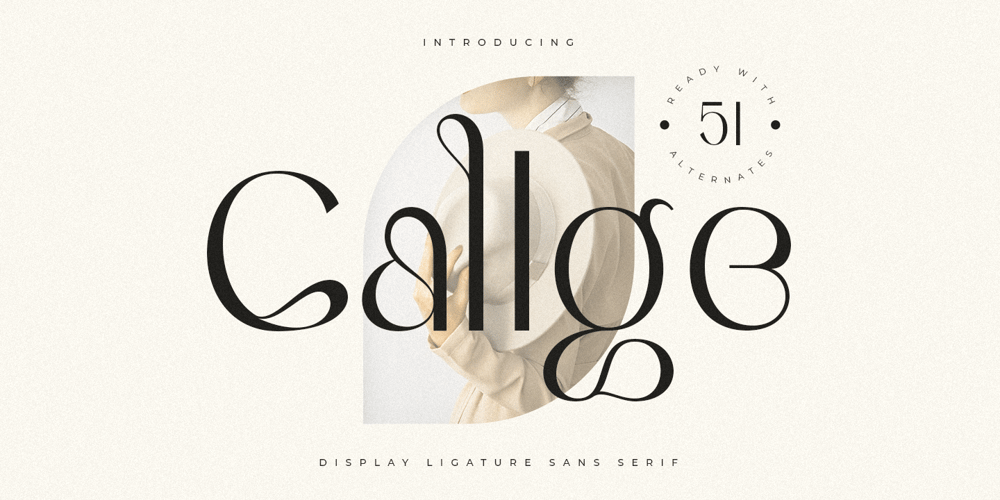
Callge Style
Callge Style font
Callge Style Font Family was designed by Zamroni Hamzah and published by Sensatype Studio. Callge Style contains 1 styles and family package options. An Unique Modern Display Font that we created special for Elegant and Classy branding needs, with extra characters alternate in unique shape will be ready to add value of your brand.Callge Display Ligature Sans Serif ready with: Any options to get creative variations (combination of Any Alternates) Preview as a inspirations that you can do with Callge font Ready with Lowercase and Uppercase characters Wish you enjoy our font. ๐Ÿ™‚